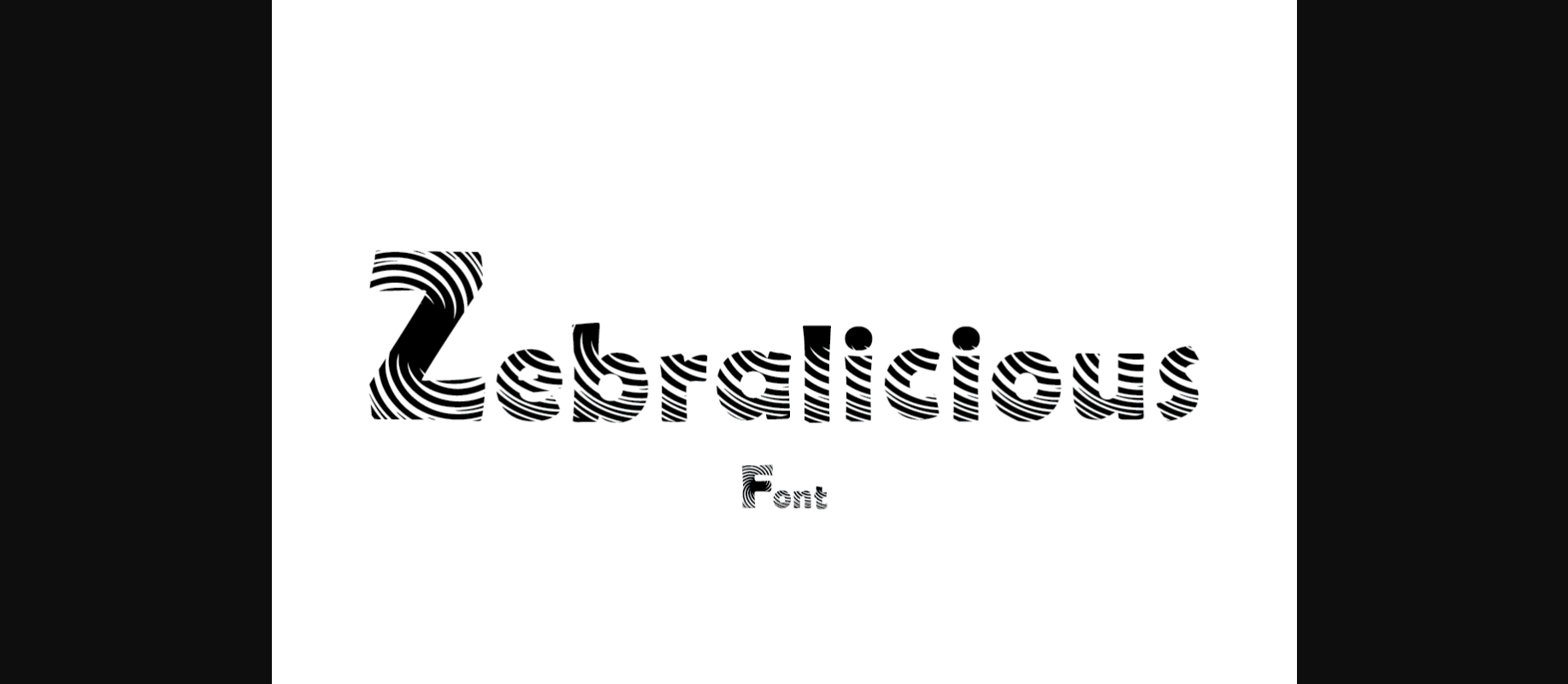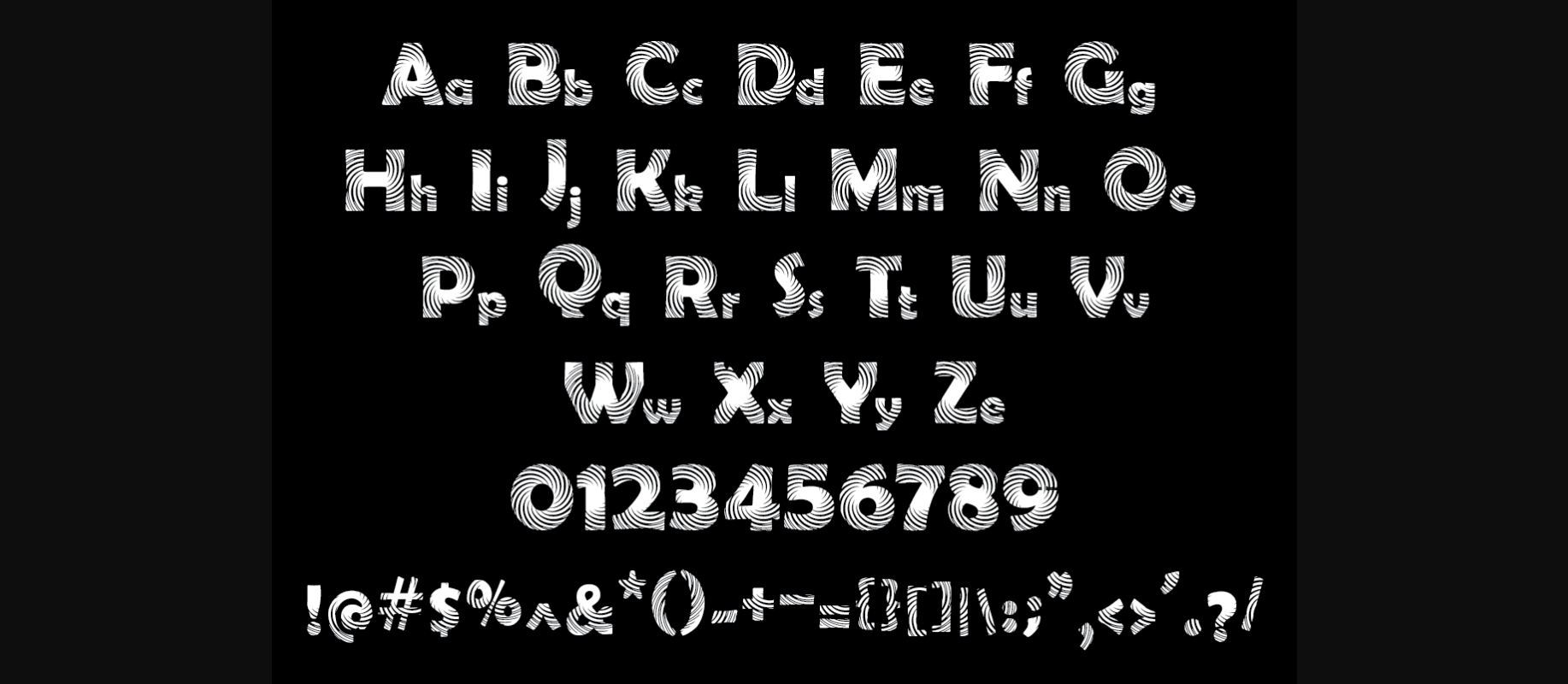
Zebralicious Font
About Zebralicious Font
Zebralicious is a fun font featuring zebra stripes. Quite a unique, and attractive decorative font. Creative use for sublimation, greeting cards, advertisement, birthday parties, quotes, titles, brand names, book covers and much much more. The options are endless.